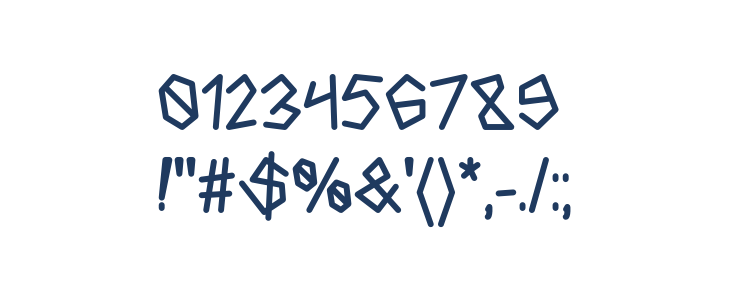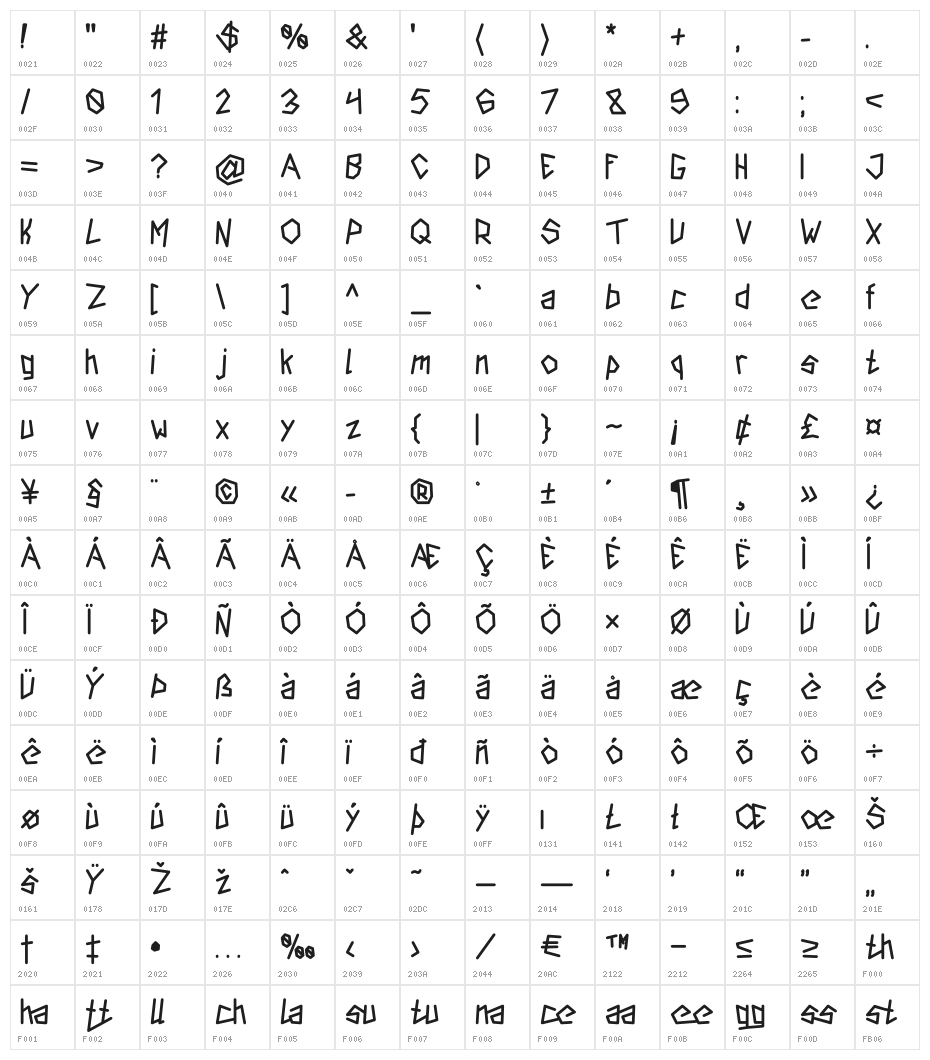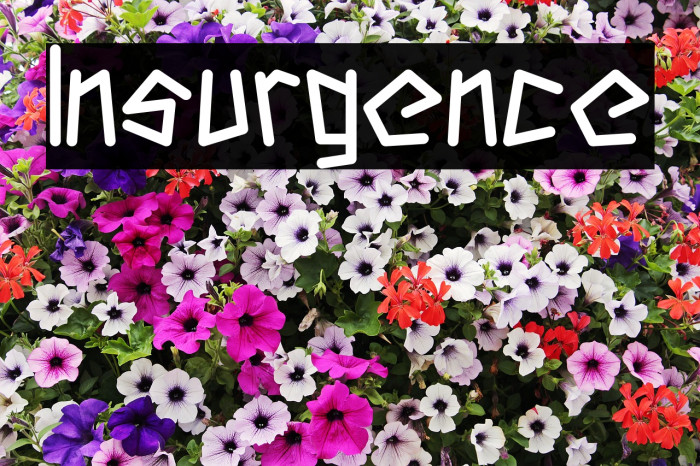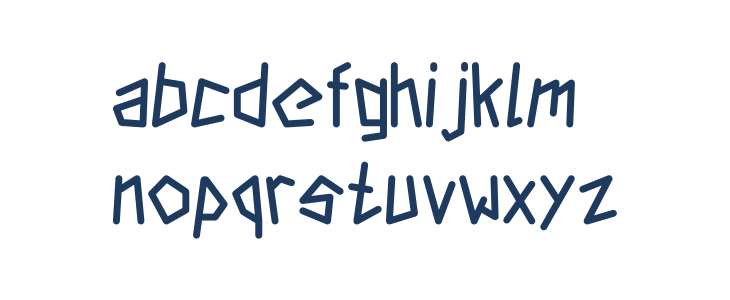
Insurgence Font
Insurgence Description
This font features a bold, angular design with a geometric and edgy appearance. The characters are constructed with sharp lines and corners, giving them a rebellious and modern feel. The uppercase and lowercase letters maintain a consistent style, with a slightly condensed form that enhances their striking look. Numbers and special characters follow the same design principles, ensuring uniformity across all glyphs. The font's unique style makes it stand out, ideal for projects that require a strong visual impact. Its distinctiveness lies in the unconventional shapes and the boldness of the strokes, which create a sense of movement and energy.
| Proposed Projects | Ideal for posters, album covers, streetwear branding, and video game graphics. |